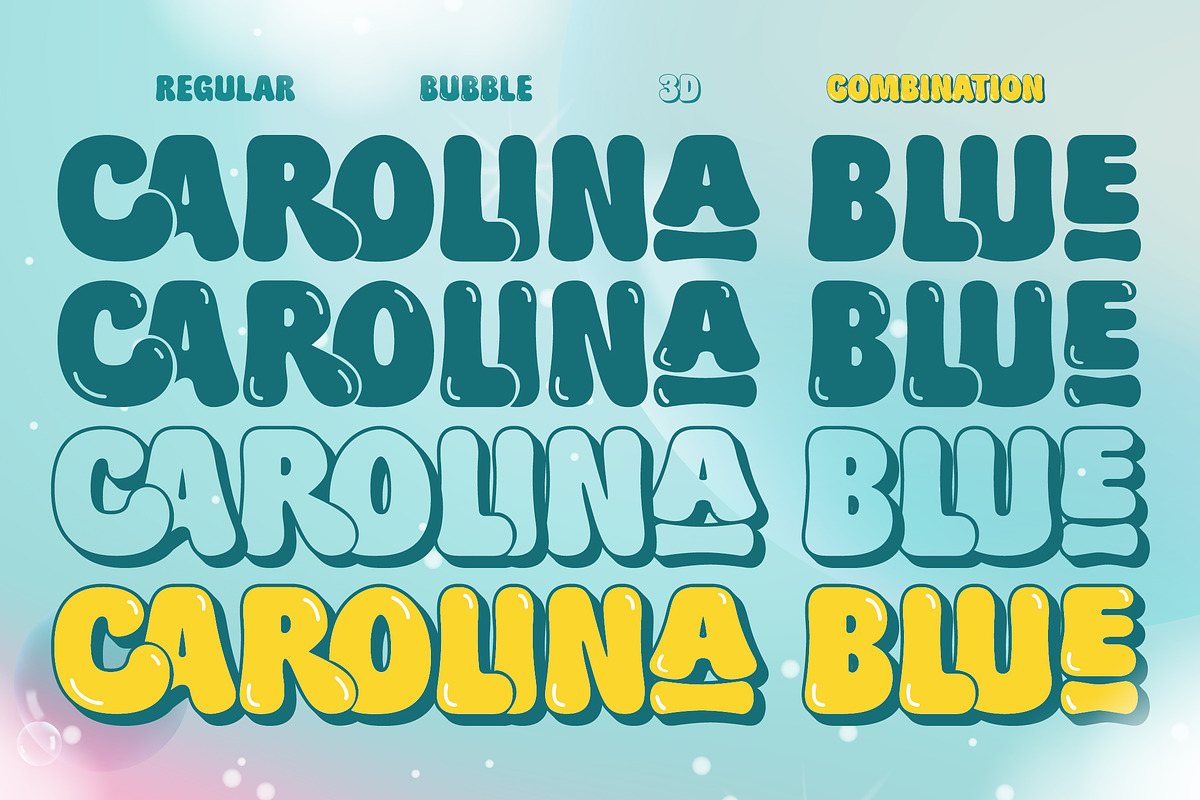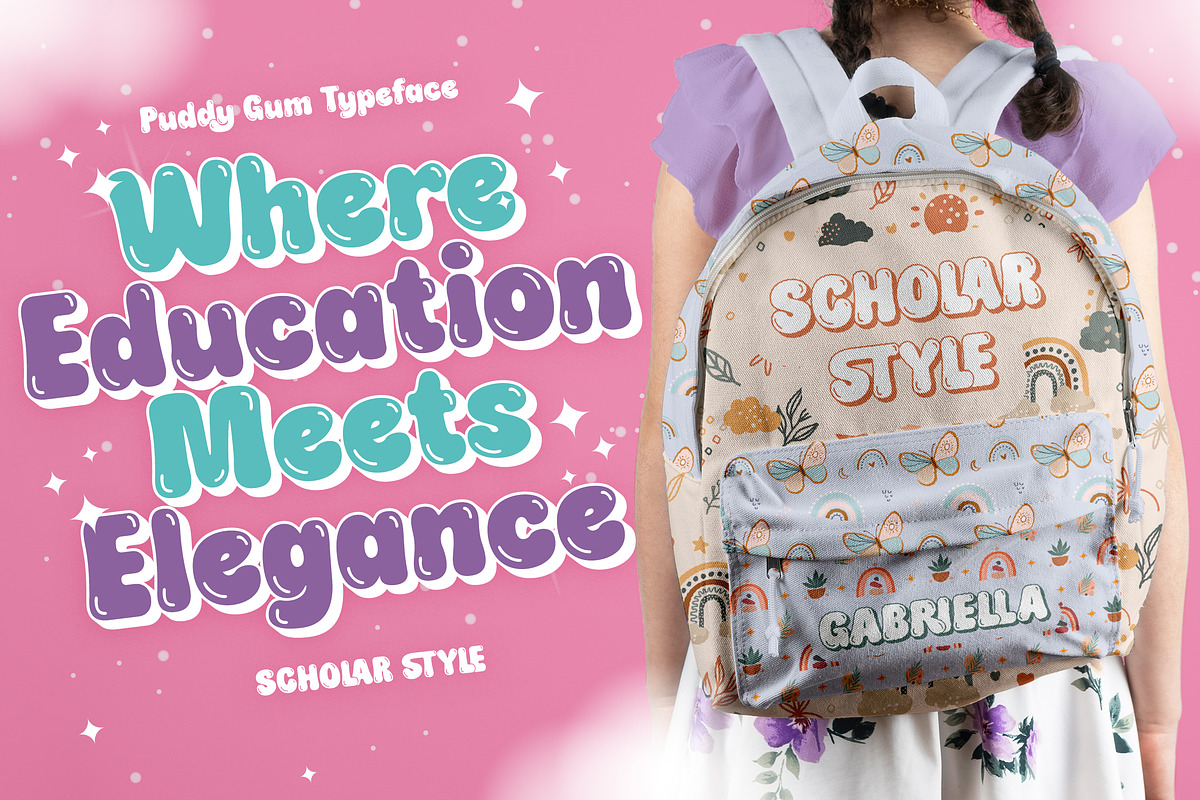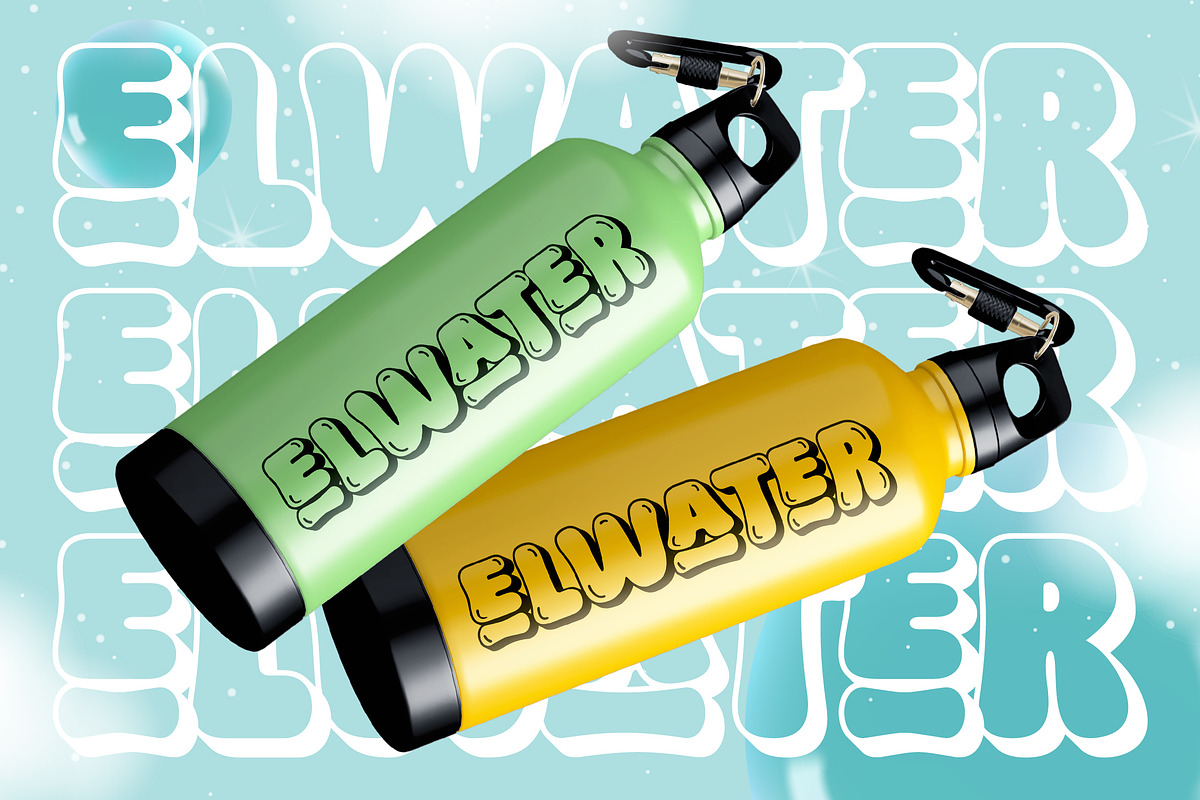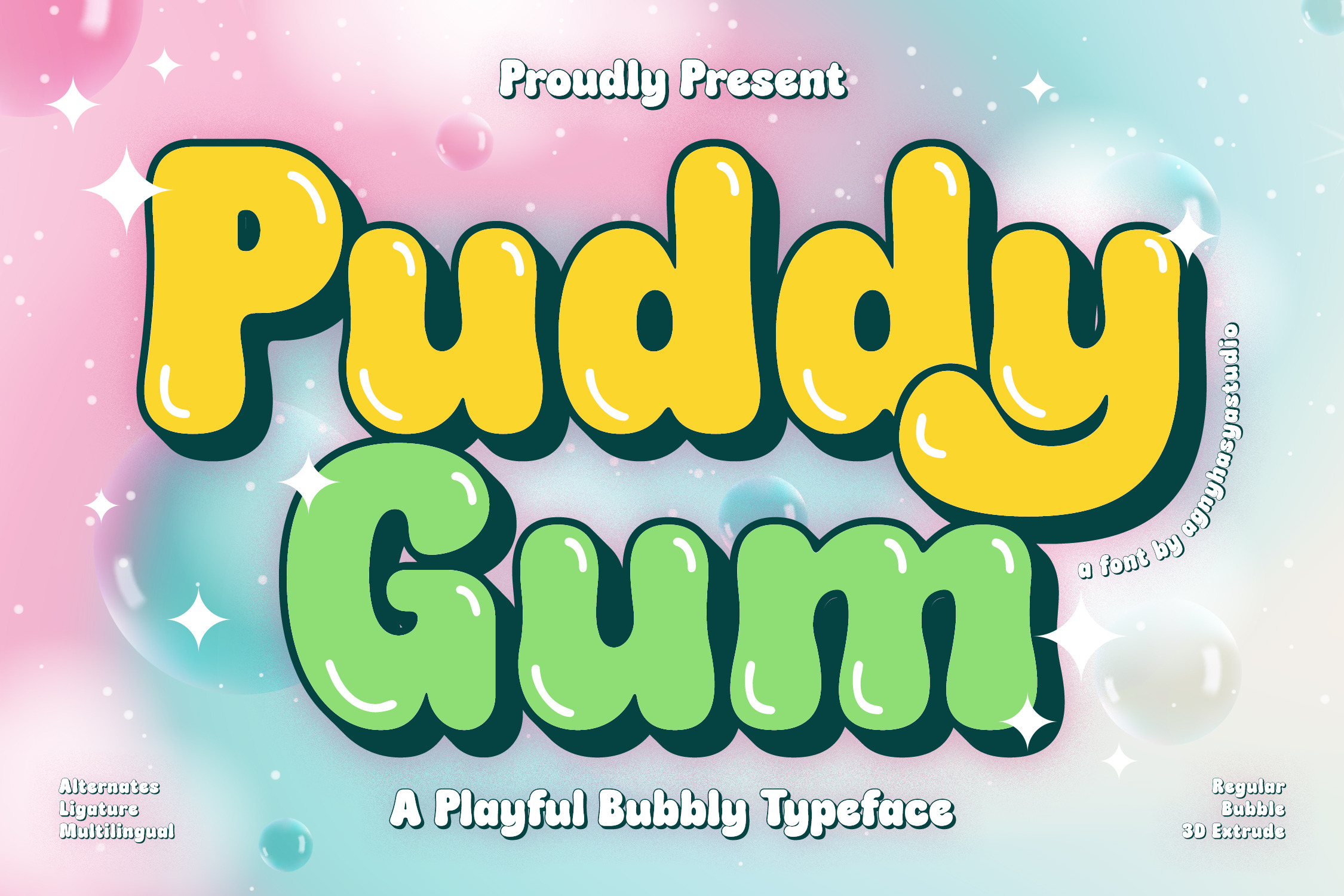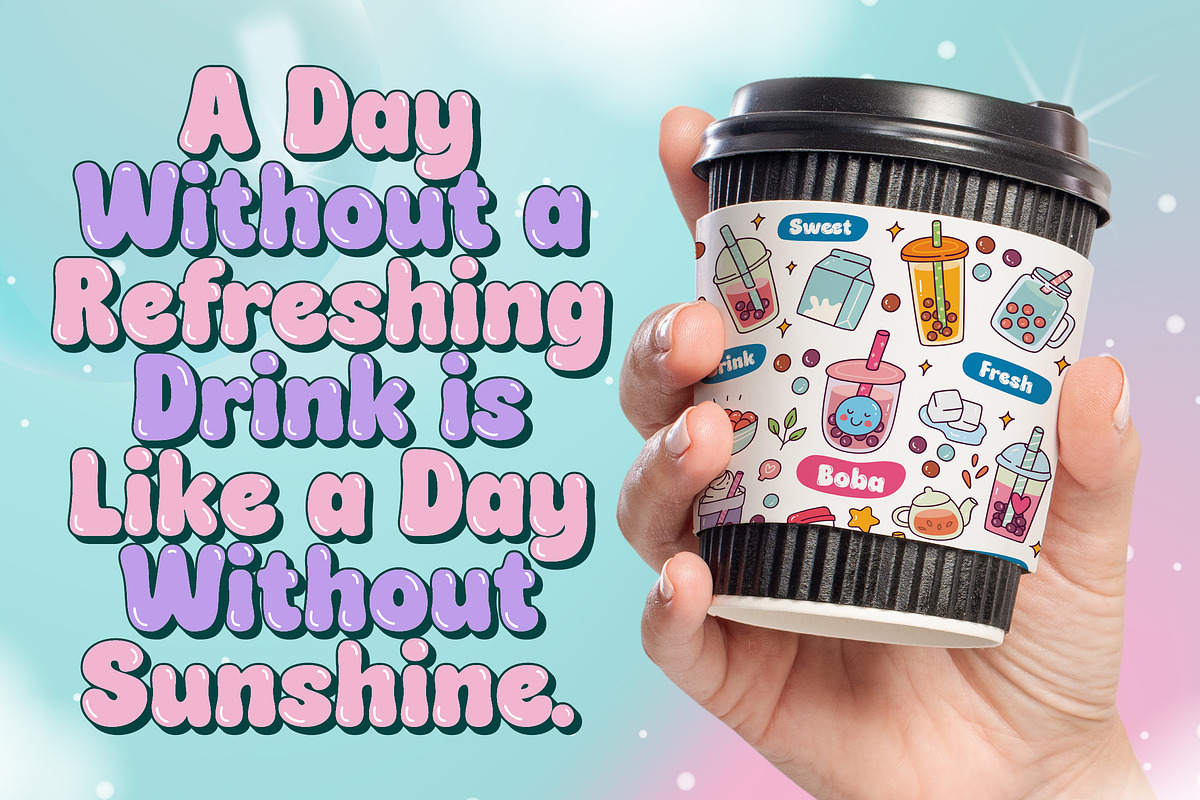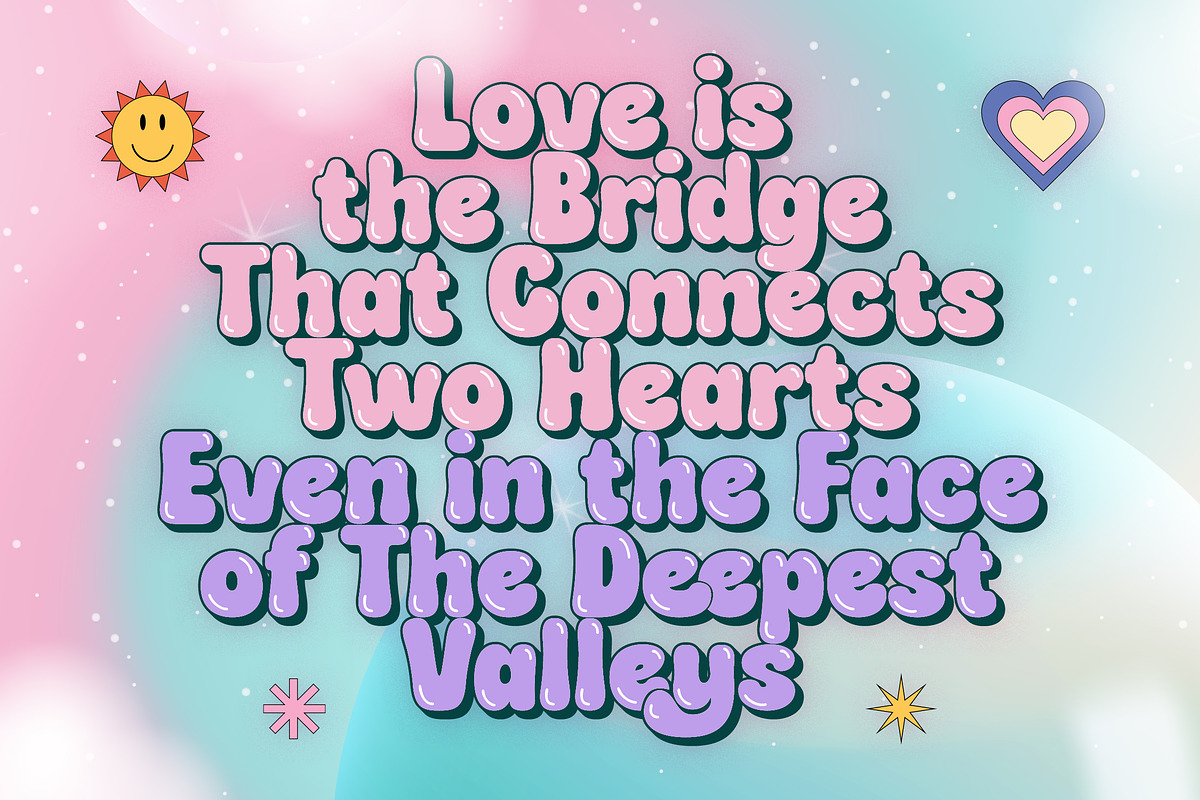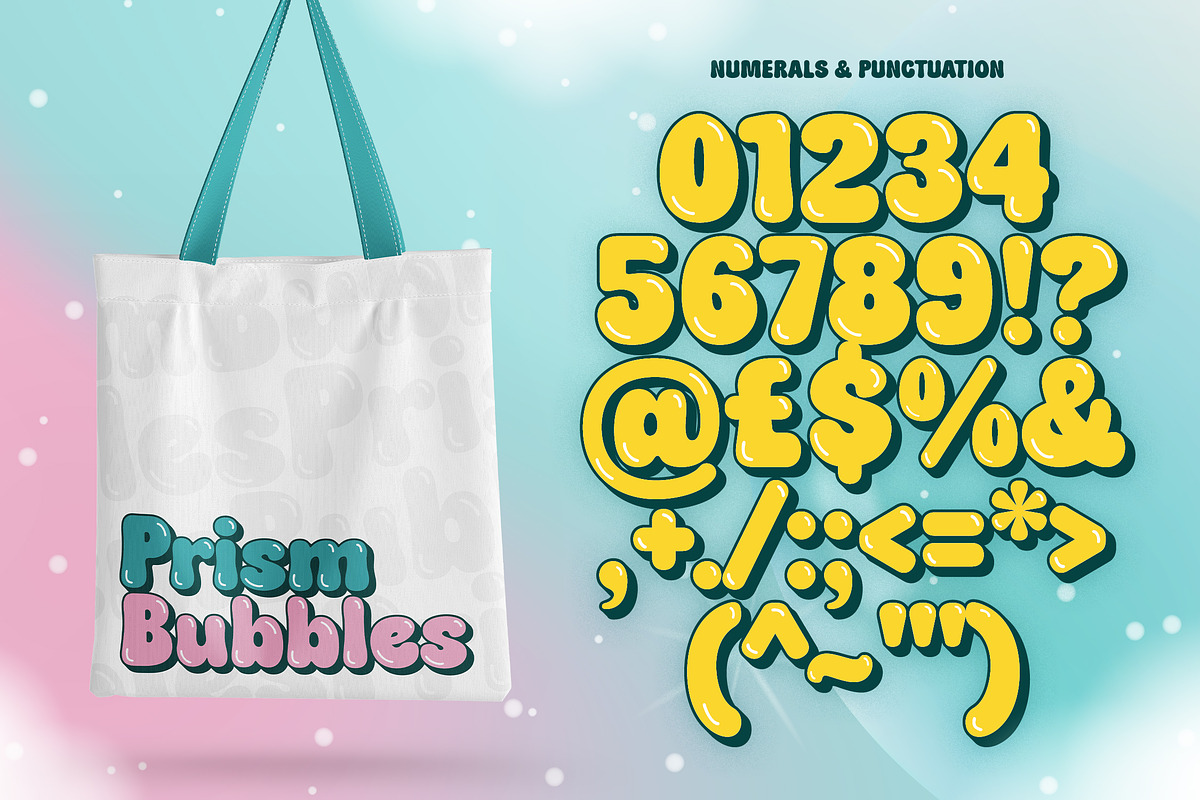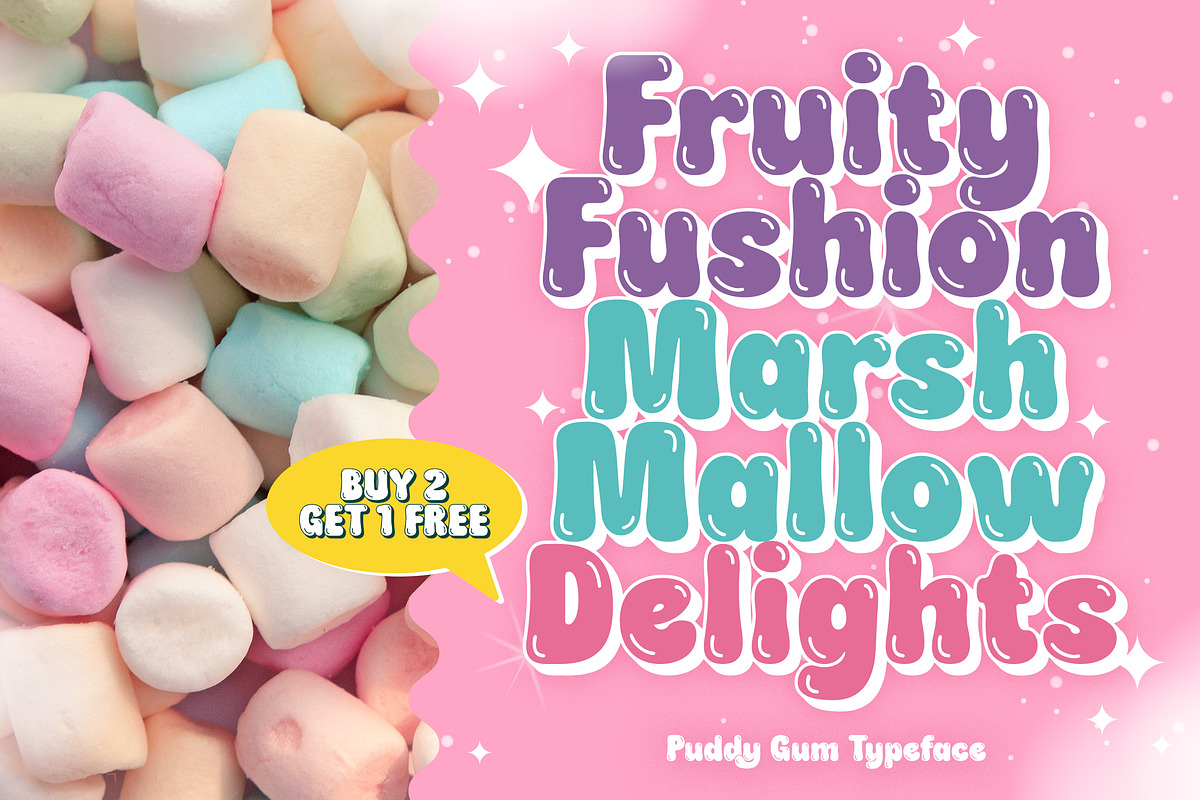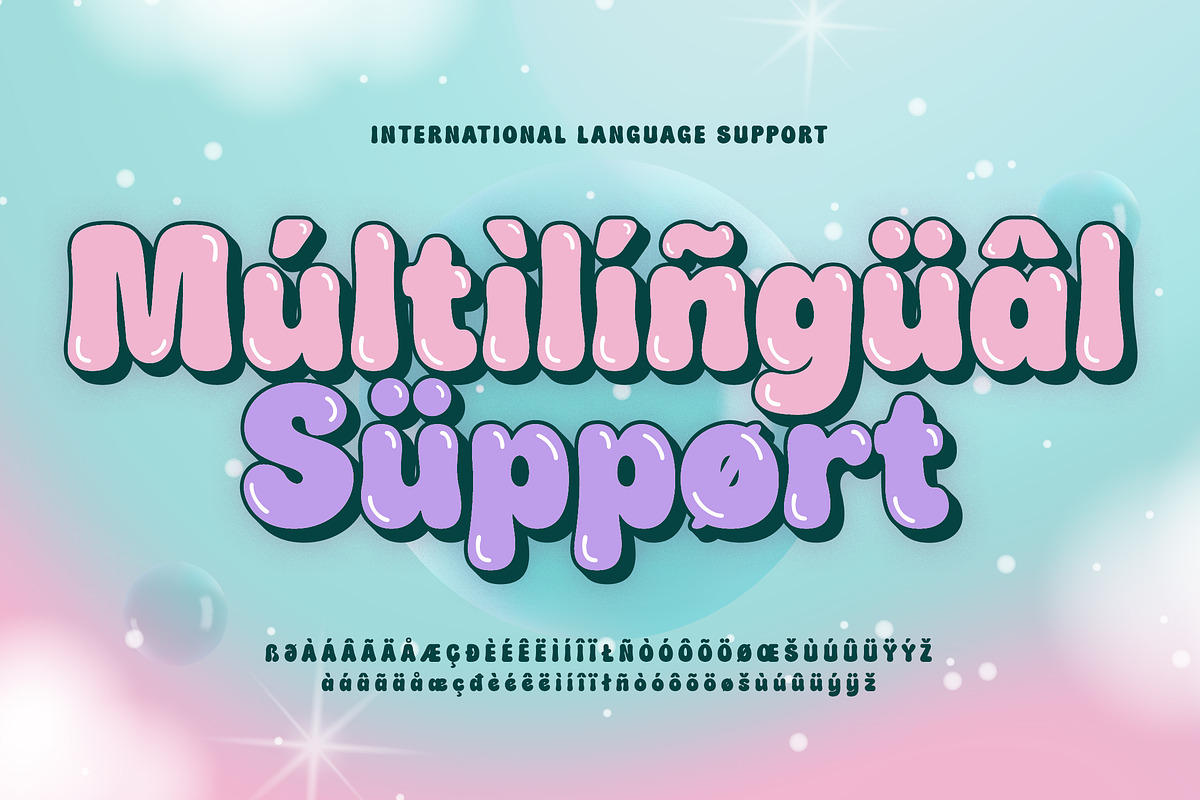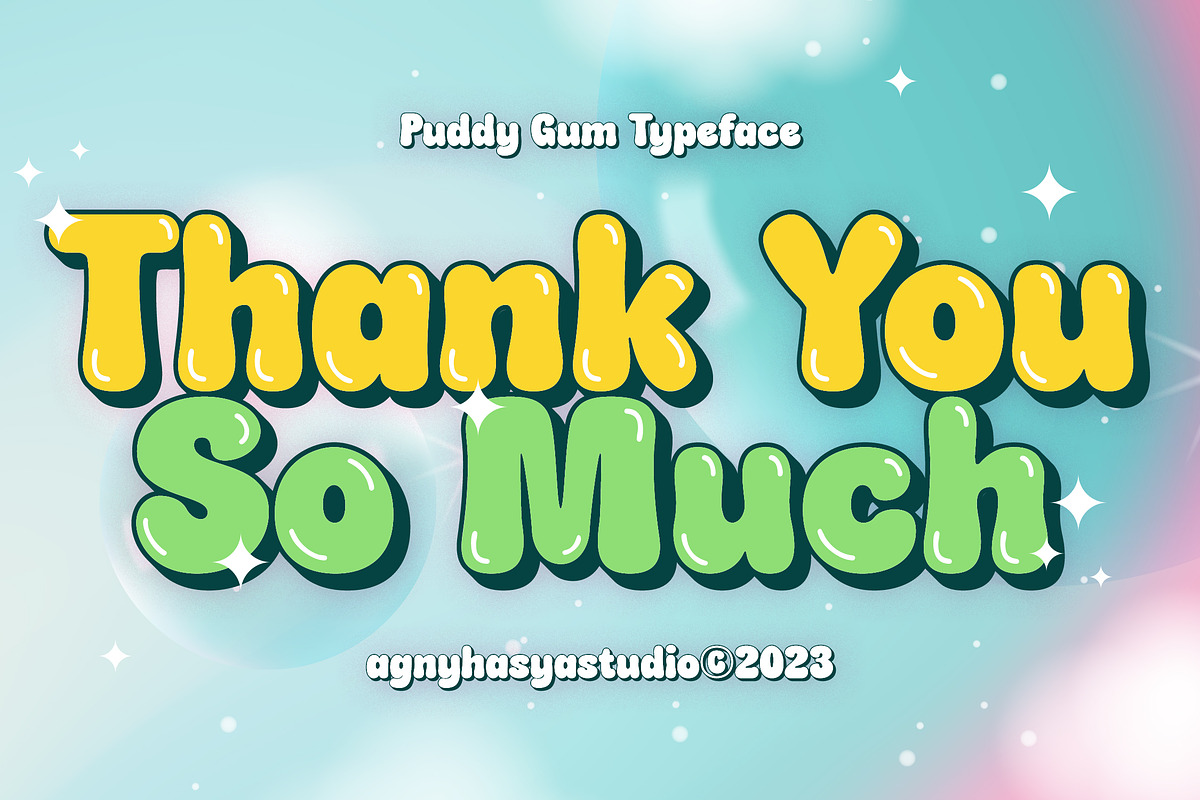
Puddy Gum - Playful Bubbly Typeface
Introducing Puddy Gum a Playful, Groovy, and Bubbly Display Typeface, Fluffy, and Fun. This Font Family Comes in 3 Styles (Regular, Bubble, and Outline 3D Extrude) and Includes Italics. Featured With Pua Unicode, Uppercase and Lowercase, Numeral and Punctuation, Multilingual Support, Created With Alternate and Ligature.
You Can Experiment With All 3 Styles Since the Characters Overlap and Align Perfectly, Resulting in Visually Interesting and Cool Typography. It’s Perfect for Your Design Projects Such as Logos, Advertising, Branding, Posters, Banners, Product Designs, Art Quotes, Special Events, Product Packaging, and More.